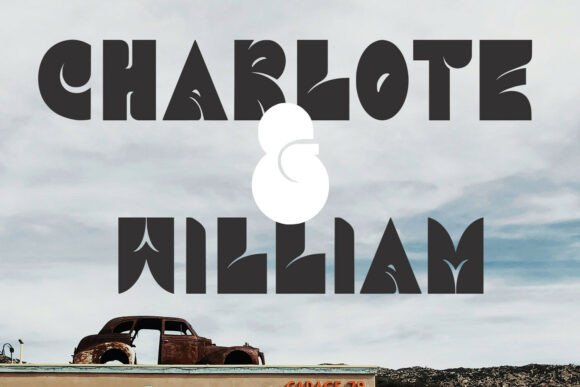
Futtalo Font: The Ultimate Retro Sans Display Font for Creative Projects
In the world of typography, fonts play a crucial role in conveying messages, expressing emotions, and creating visual identities. Among the numerous fonts available, Futtalo Font stands out as a bold and playful retro sans display font that brings nostalgic flair and modern versatility together in one dynamic typeface. With its thick strokes, groovy curves, and charmingly quirky letterforms, Futtalo adds character to any creative project, making it an ideal choice for designers, artists, and writers.
The Unique Features of Futtalo Font
Futtalo Font boasts a distinctive design that sets it apart from other fonts. Its thick strokes and groovy curves evoke a sense of nostalgia, reminiscent of the retro era, while its charmingly quirky letterforms add a touch of playfulness. This unique blend of vintage and modern elements makes Futtalo a versatile font that can be used in a wide range of creative projects.
- Thick Strokes: Futtalo’s thick strokes give it a bold and eye-catching appearance, making it perfect for headlines, titles, and logos.
- Groovy Curves: The font’s groovy curves add a touch of playfulness and whimsy, making it ideal for creative projects that require a lighthearted tone.
- Charmingly Quirky Letterforms: Futtalo’s quirky letterforms add character to any text, making it a great choice for designers who want to create unique and memorable visual identities.
The Versatility of Futtalo Font
Futtalo Font is an incredibly versatile typeface that can be used in a wide range of creative projects. Whether you’re designing standout logos, eye-catching social media posts, vibrant movie or book titles, or stylish editorial layouts, Futtalo ensures your message is loud, fun, and memorable.
- Logos: Futtalo’s bold and playful design makes it an ideal choice for logos that require a unique and memorable visual identity.
- Social Media Posts: The font’s eye-catching appearance and playful tone make it perfect for social media posts that require a lighthearted and engaging approach.
- Movie and Book Titles: Futtalo’s bold and attention-grabbing design makes it a great choice for movie and book titles that require a striking visual identity.
- Editorial Layouts: The font’s stylish and playful design makes it ideal for editorial layouts that require a unique and engaging visual approach.
Futtalo Font and Multilingual Support
In today’s globalized world, designers need fonts that can support multiple languages. Futtalo Font shines in this regard, supporting over 100 languages. This multilingual support makes it an ideal choice for designers who work on international projects or need to create content for diverse audiences.
Whether you’re creating a website, brochure, or social media post for a global audience, Futtalo Font ensures that your message is conveyed clearly and effectively. Its ability to support multiple languages makes it a versatile font that can be used in a wide range of creative projects.
Pairing Futtalo Font with Other Fonts
One of the key benefits of Futtalo Font is its ability to pair seamlessly with other fonts. Whether you’re using serif or sans companions, Futtalo elevates your design and adds a touch of visual excitement. Here are some tips for pairing Futtalo Font with other fonts:
- Serif Fonts: Pair Futtalo with serif fonts for a classic and elegant look. This combination works well for editorial layouts, book titles, and movie posters.
- Sans Fonts: Pair Futtalo with sans fonts for a modern and playful look. This combination works well for social media posts, logos, and website headers.
Tips for Using Futtalo Font Effectively
To get the most out of Futtalo Font, here are some tips for using it effectively:
- Use it for Headlines: Futtalo Font is perfect for headlines, titles, and logos. Use it to create bold and eye-catching text that grabs attention.
- Experiment with Colors: Futtalo Font looks great in a variety of colors. Experiment with different colors to find the one that works best for your design.
- Mix and Match: Don’t be afraid to mix and match Futtalo Font with other fonts. This can create a unique and visually appealing design.
Futtalo Font is a bold and playful retro sans display font that brings nostalgic flair and modern versatility together in one dynamic typeface. With its thick strokes, groovy curves, and charmingly quirky letterforms, Futtalo adds character to any creative project. Supporting over 100 languages, this multilingual font shines in both short punchy headlines and extended text. Pair it seamlessly with serif or sans companions to elevate your designโFuttalo turns every word into visual excitement.
- What is Futtalo Font? Futtalo Font is a bold and playful retro sans display font that brings nostalgic flair and modern versatility together in one dynamic typeface.
- What languages does Futtalo Font support? Futtalo Font supports over 100 languages.